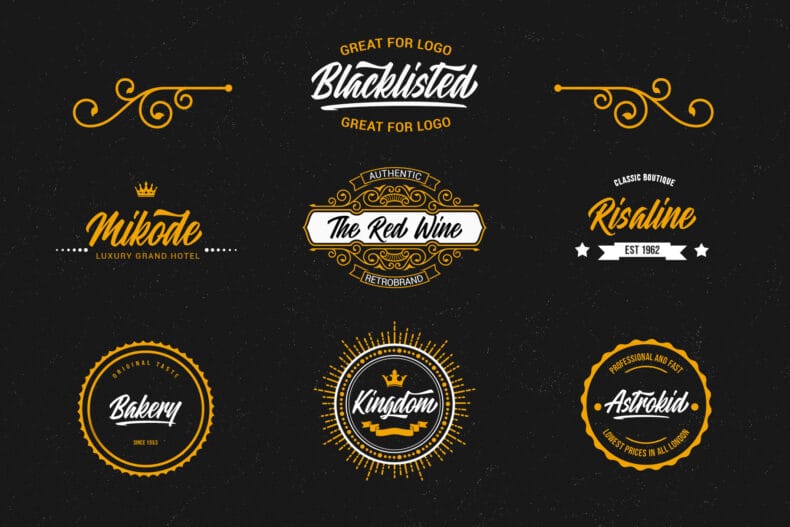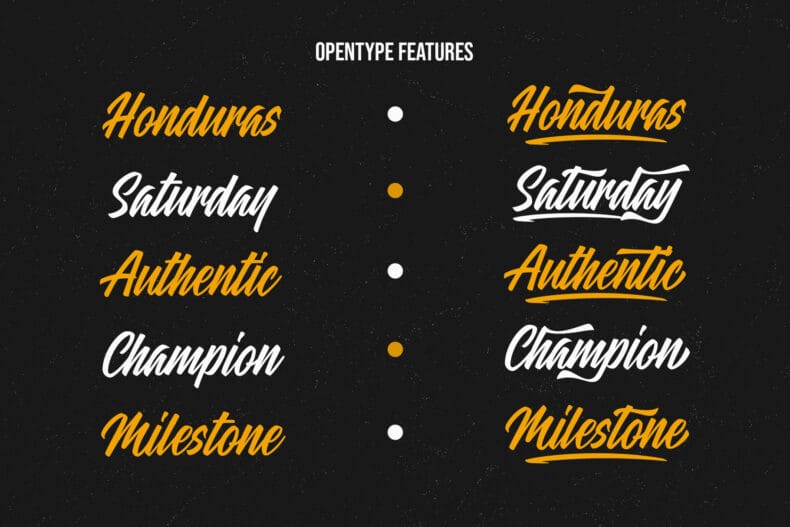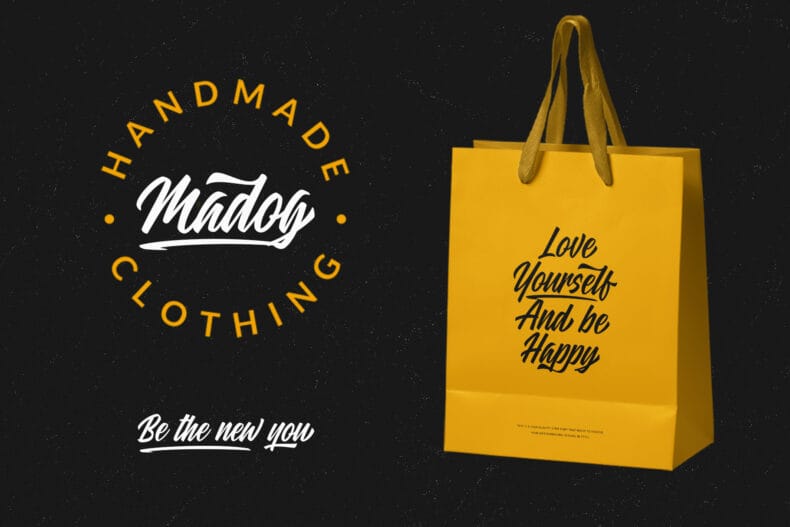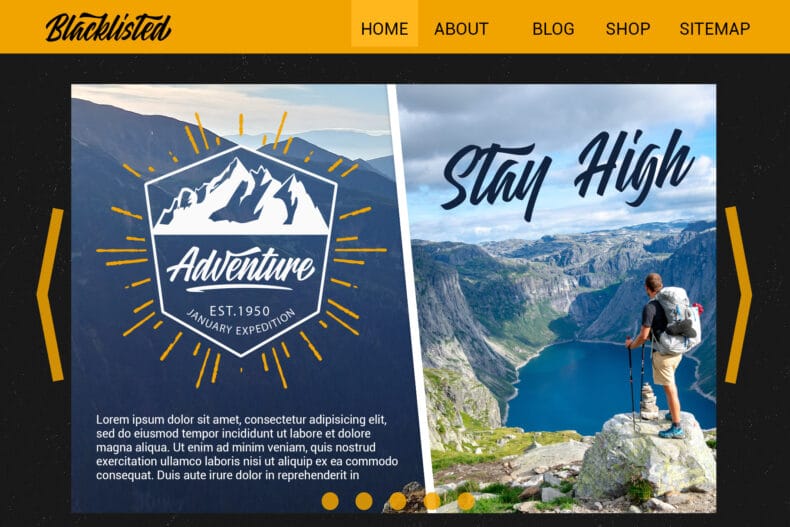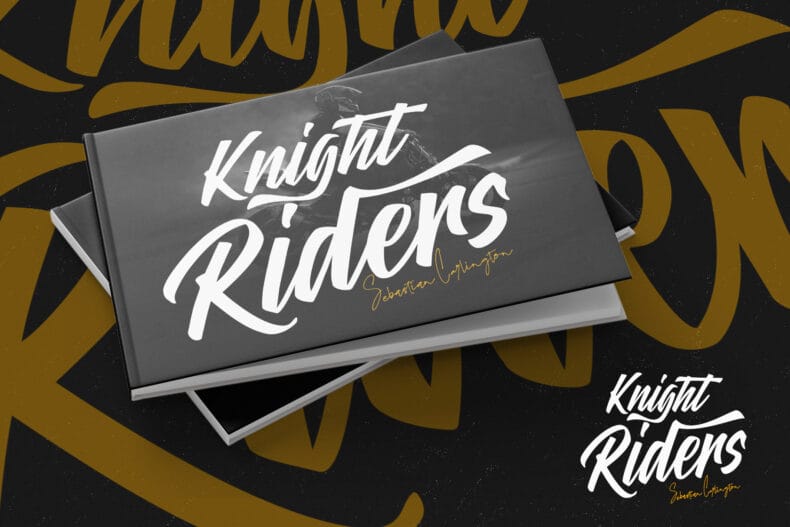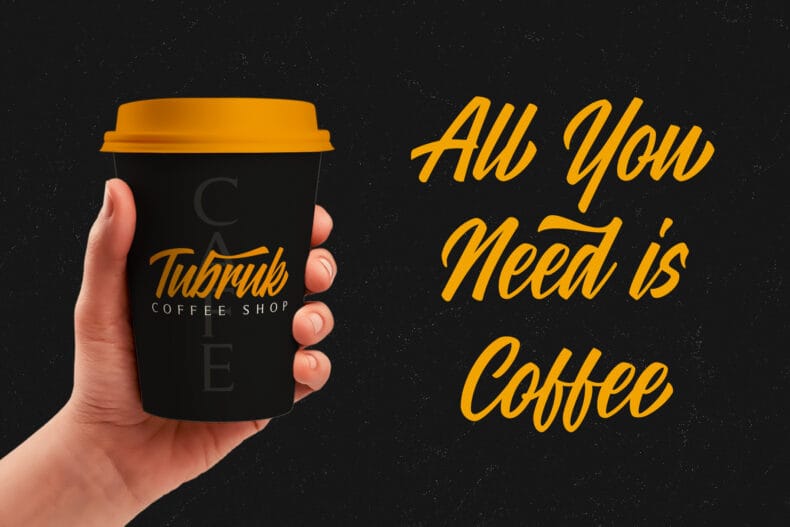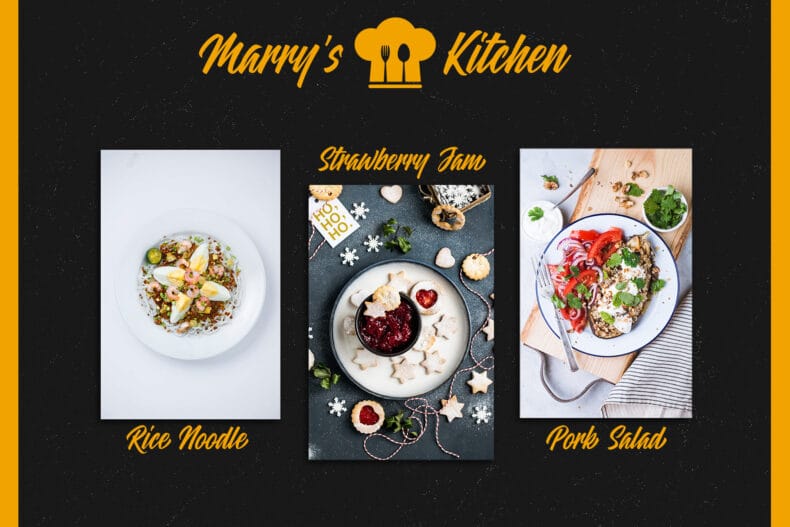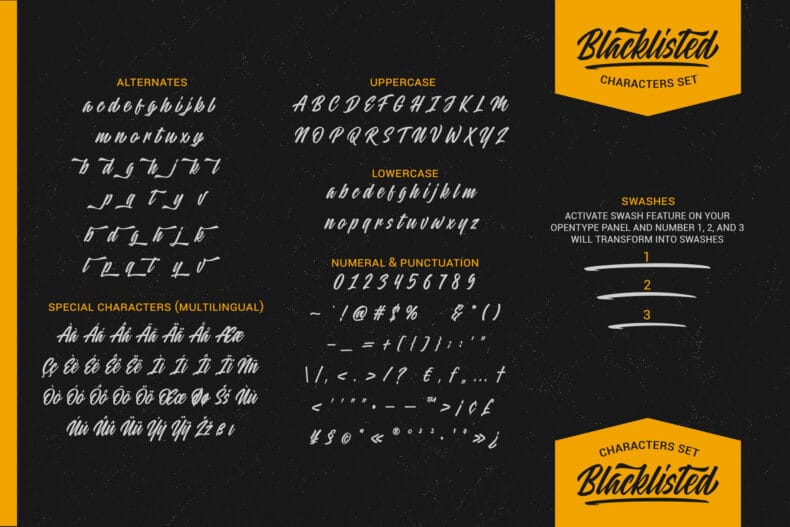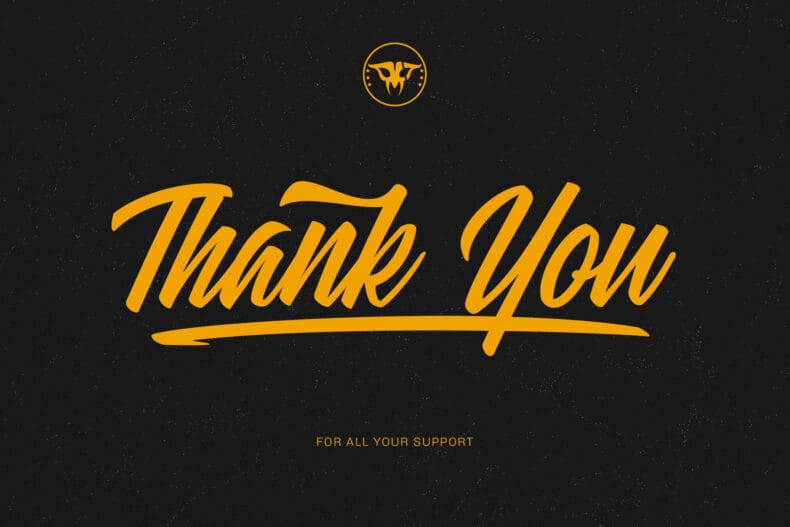
Blacklisted, Vintage Script Font
Blacklisted is a vintage script font with clean brush strokes. It’s very recommended for logo, branding, clothing, poster, and many more. You can customize every word with alternates characters and swashes. Blacklisted also support special characters for multilingual.